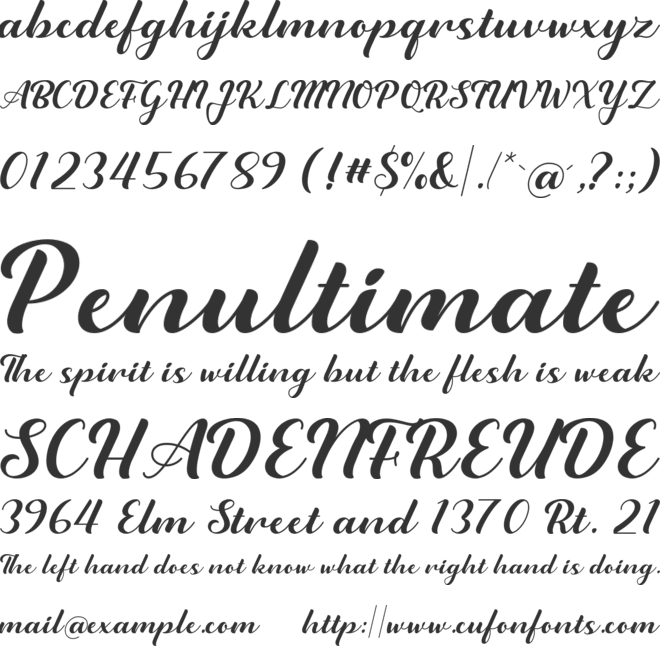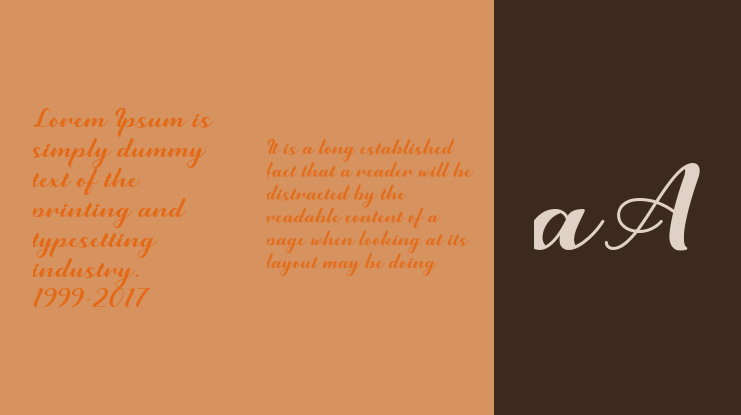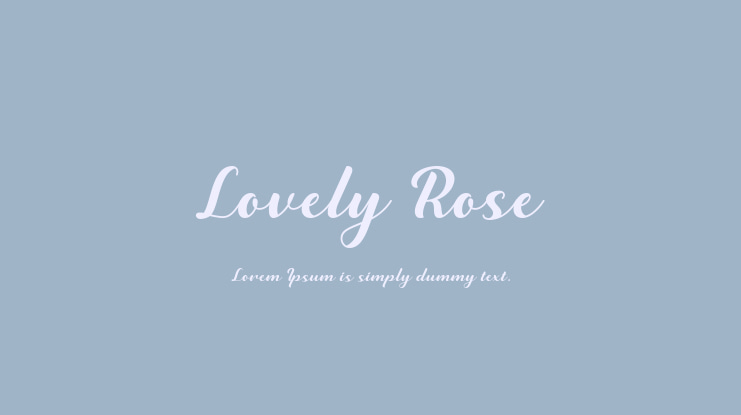
Lovely Rose Font
Lovely Rose Romantic calligraphy script font inspired by lovely valentines themes. This font is suitable for greeting card, wedding invitation, instagram post, quotes and so on.